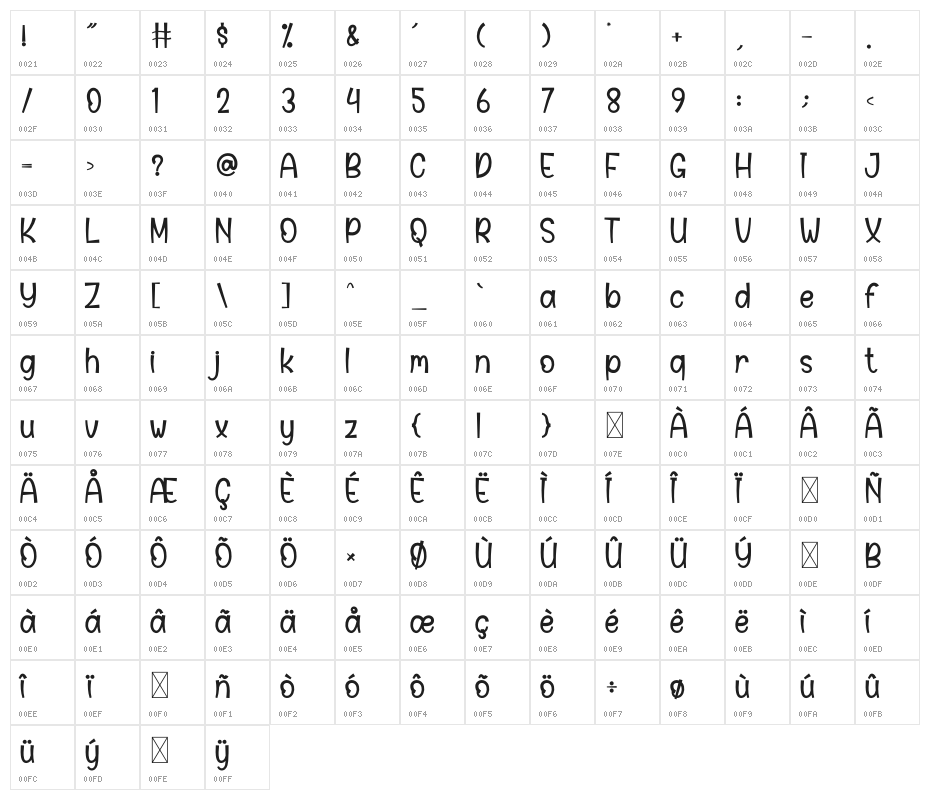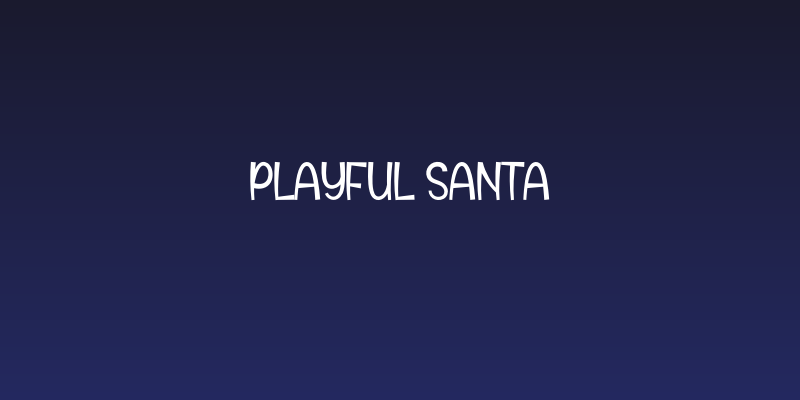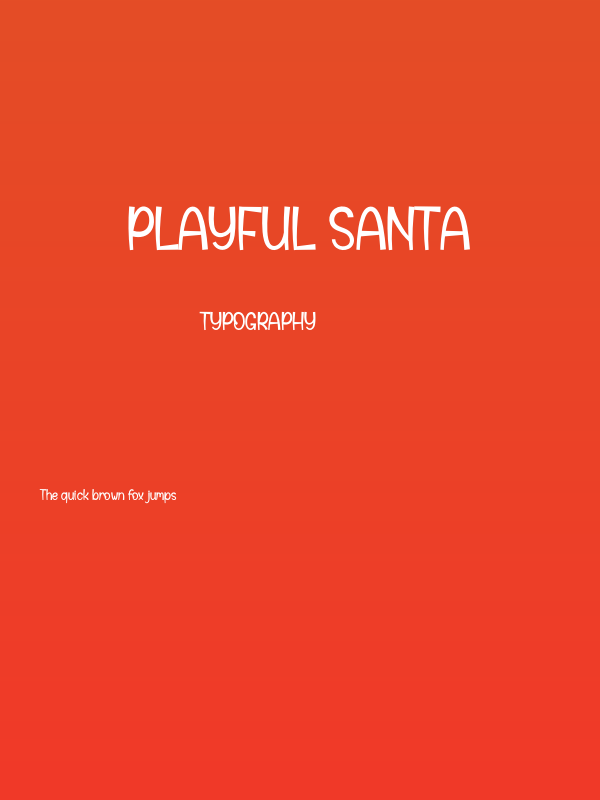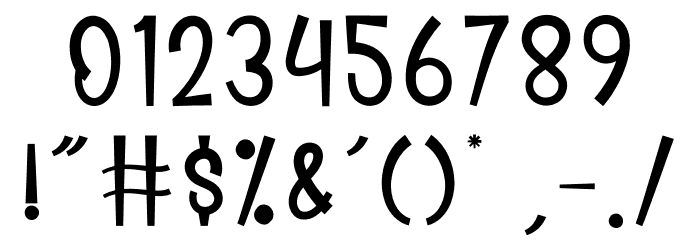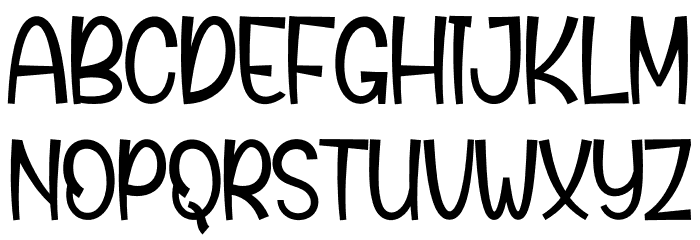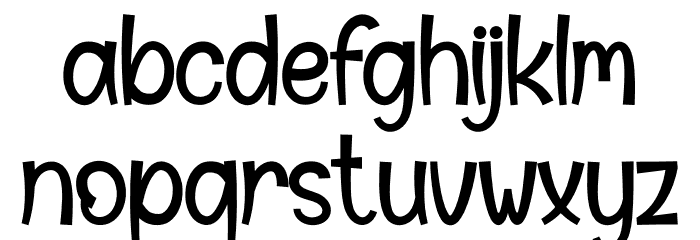
Playful Santa Font
Playful Santa Description
A whimsical and playful font with irregular shapes and a hand-drawn feel, suitable for festive and fun designs.
| Overall Style | Playful and whimsical |
| Proposed Projects | Holiday cards, children's books, playful branding. |